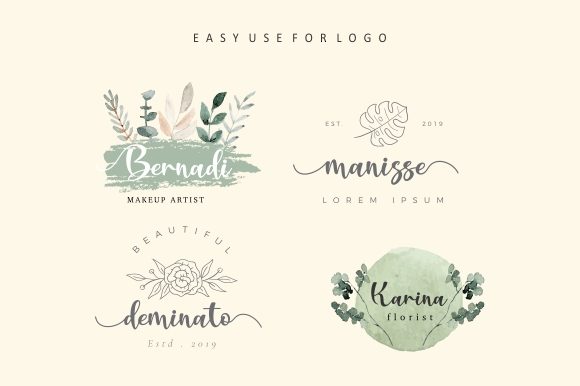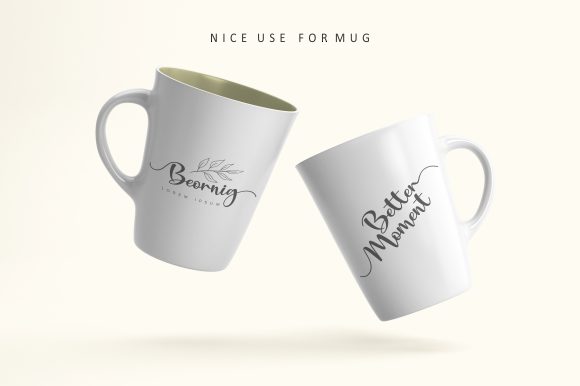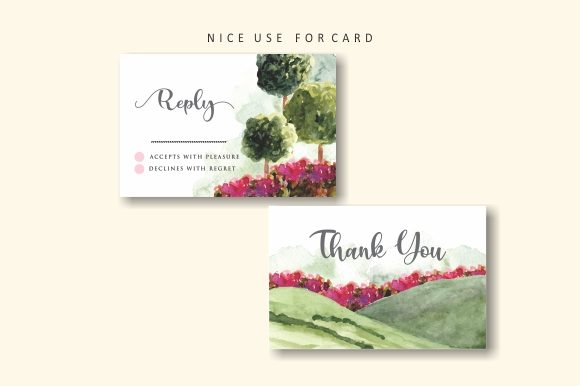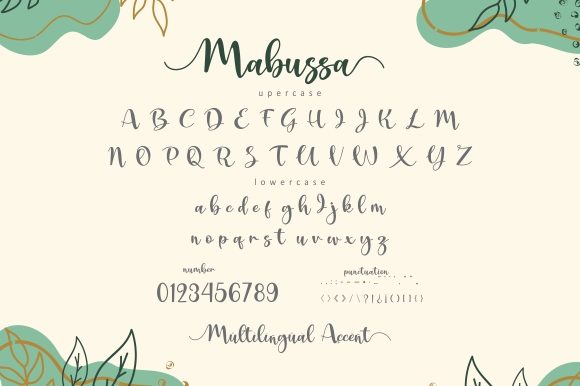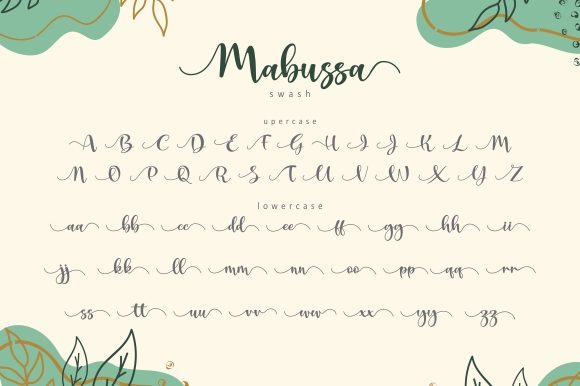
Introduction to Mabussa Font
Mabussa is a beautiful and dreamy handwritten font.
Its distinct and well rounded letters make this font a masterpiece This font is PUA encoded which means you can access all of the glyphs and swashes with ease.
Mabussa Font offers exceptional quality and versatility, making it a valuable addition to your design toolkit. Whether you’re creating for personal projects or commercial use, Mabussa Font delivers professional results.